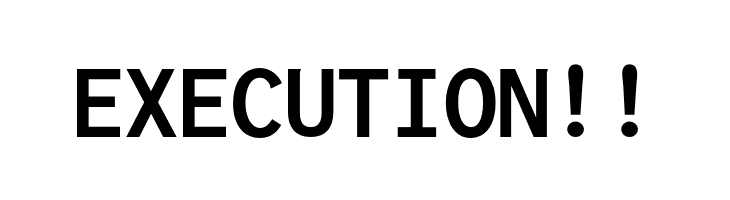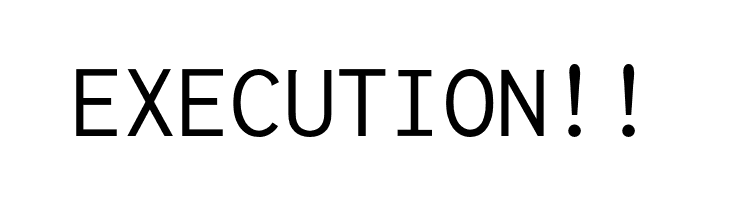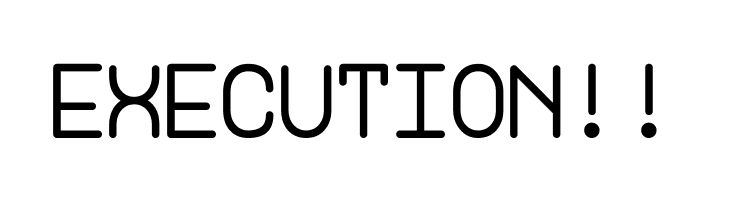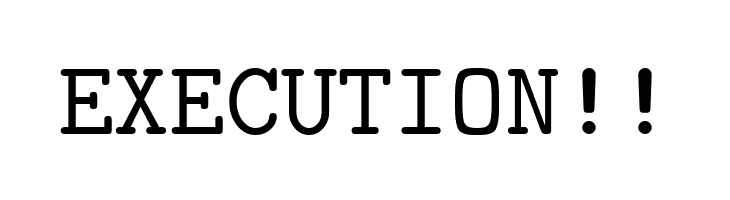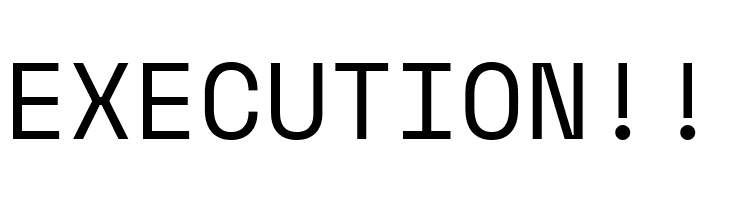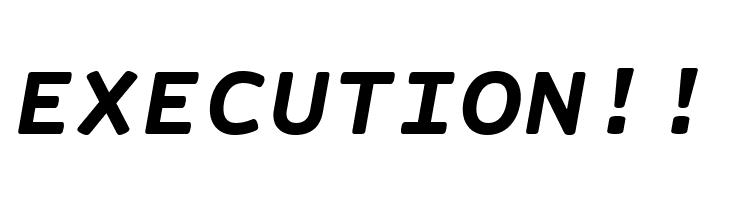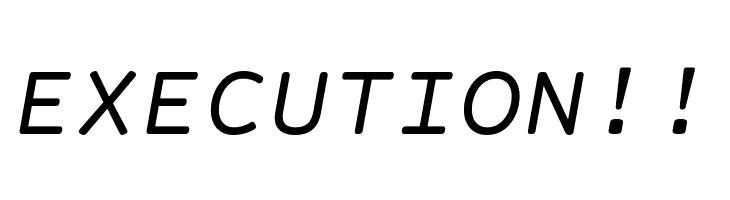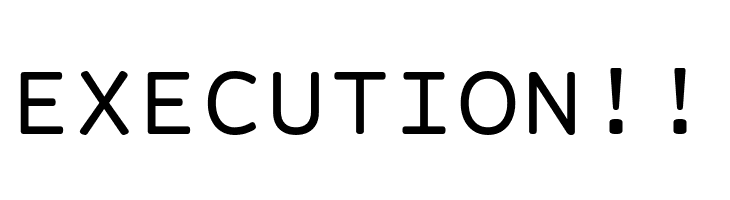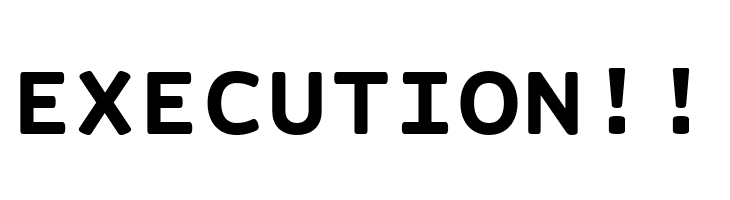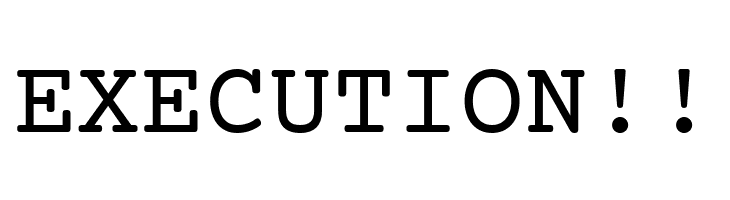
A bold, italic monospaced font with a modern and structured appearance.
A clean, monospaced typeface with a minimalist and modern design.
A bold, monospaced font with a modern, geometric design.
A clean, modern monospaced font with light strokes and geometric design.
A modern, monospaced typeface with medium weight and low contrast, ideal for technical uses.
A thin, monospaced font with a modern, geometric design.
A modern, monospaced italic font with medium weight and balanced proportions.
A monospaced font designed for readability, featuring distinct, weighted letterforms.
A pixelated, monospaced font with a retro digital aesthetic.
A pixelated, monospaced font inspired by classic DOS interfaces.
A pixelated, monospaced typeface inspired by classic DOS interfaces.
A pixelated, monospaced font with a retro digital style.
A monospaced font with a clean, geometric style, ideal for technical use.
A bold, monospaced font with uniform strokes and clear readability.
A modern, geometric monospaced font with clean lines and uniform character width.
A monospaced oblique font with a modern and dynamic style.
A clean, monospaced typeface with uniform spacing and modern design.
A bold, oblique monospaced font with a modern and dynamic style.
A bold, monospaced font with uniform character width and strong readability.
A bold, monospaced font with a clean, modern design and medium contrast.
A clean, modern monospaced typeface with consistent stroke width.
A monospaced typewriter-style font with a vintage, mechanical charm.
A modern, monospaced font with a digital dot pattern.
A modern, monospaced font with low contrast and geometric shapes.
A bold, italic, monospaced sans-serif font with clear, evenly spaced characters.
A clean, monospaced italic font with low contrast and modern style.
A clean, modern sans-serif monospaced font with low contrast and uniform spacing.
A bold, monospaced sans-serif font with a modern and clean design.
A monospaced font with a classic typewriter style, offering clarity and uniformity.
A modern, monospaced italic typeface with clean lines and uniform spacing.
A clean, modern sans-serif monospaced font with low contrast and excellent readability.